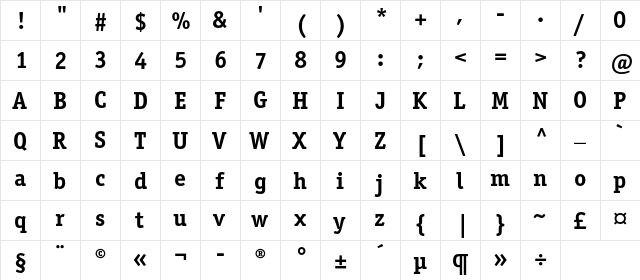
OfficinaSerifBoldC Regular
Design Context for OfficinaSerifBoldC Typeface
OfficinaSerifBoldC carries the refined structure of traditional serif typography, with bracketed terminals and considered proportions that communicate credibility and craft. Its bold stroke weight gives it real presence on the page.
Pro Tip: Use OfficinaSerifBoldC for editorial body copy and considered headline work. Pair with a neutral sans for UI elements or captions to create a classic hierarchy.